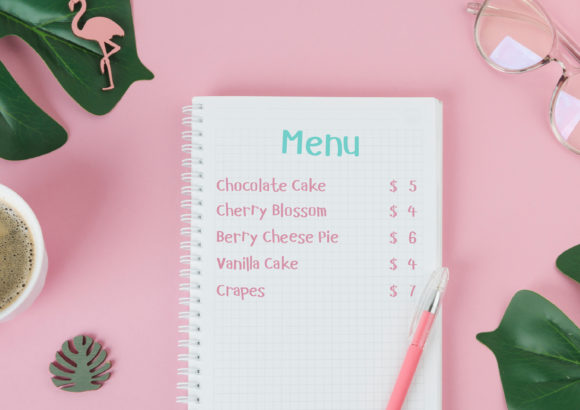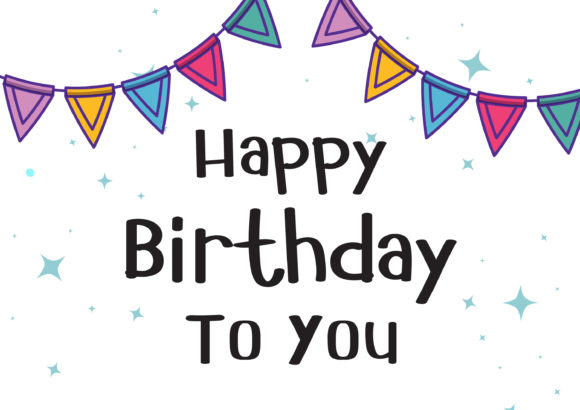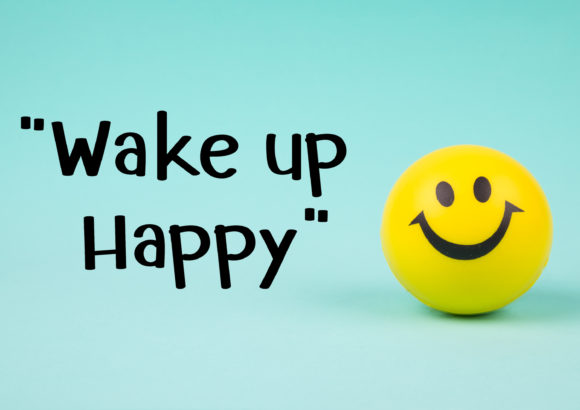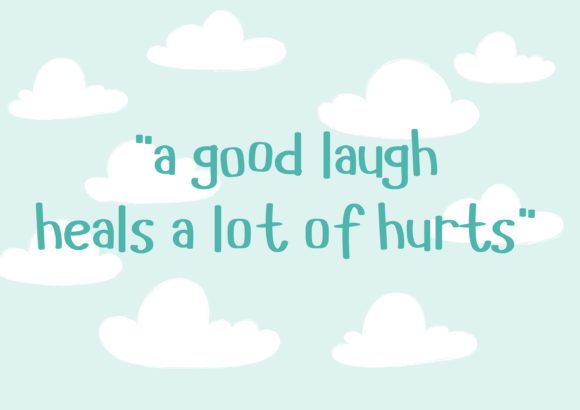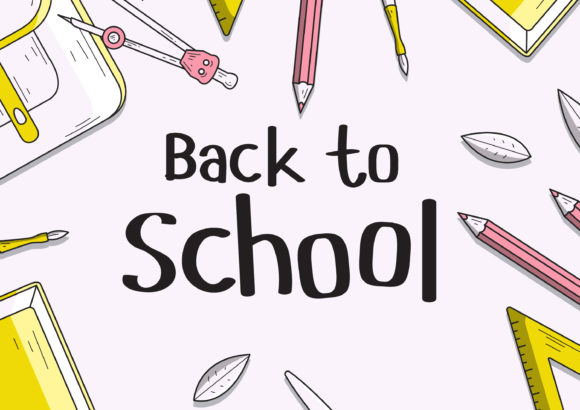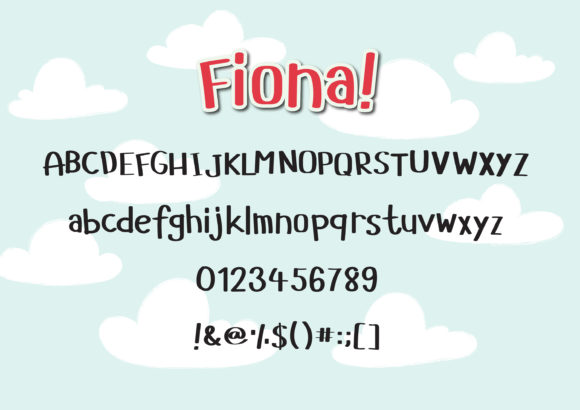
The Quest for the Perfect Handwritten Font: Discovering Fiona
I’ll never forget the design project that led me to discover the lovely Fiona font. I was working on a branding project for a crafty client, and I was determined to find the perfect handwritten font that would capture her down-to-earth, creative vibe. After hours of scrolling through font websites and trying out various options, I stumbled upon Fiona – and it was love at first sight! ✨
An Honest Review of Fiona Font
Fiona is a beautifully crafted handwritten font that has become a true favorite in my design toolkit. Here’s what I love about it:
- ✨ Casual charm: Fiona has a wonderfully relaxed, casual feel that makes it perfect for designs that need a personal touch.
- ✅ Readability: This font is incredibly readable, even at smaller sizes, making it ideal for body text or captions.
- ✅ Versatility: Fiona looks stunning in a variety of contexts, from busy backgrounds to standalone headlines.
Of course, no font is perfect, and Fiona has a few minor quirks:
- 🤔 Limited formal applications: While Fiona is amazing for casual designs, it might not be the best fit for more formal or corporate projects.
- ⚠️ Occasional kerning issues: As with any font, there might be some kerning issues when using Fiona with certain letter combinations.
Fiona font comes with a range of OpenType features, including:
The Story Behind Fiona Font
Fiona font was designed by a talented type designer who wanted to create a handwritten font that captured the essence of casual, everyday writing. Inspired by the imperfections and quirks of handwriting, Fiona font is a beautiful, imperfectly perfect addition to any design project.
| Font Name | Fiona Font |
| Author | Pila Studio |
| Is Fiona font suitable for body text? | Yes, Fiona font is highly readable and can be used for body text. However, it works best at larger sizes (14pt or larger) for optimal readability. |
| Does Fiona font come with OpenType features? | Yes, Fiona font includes OpenType features such as ligatures and stylistic alternates. You can access these features in compatible design software like Adobe Photoshop and Illustrator. |